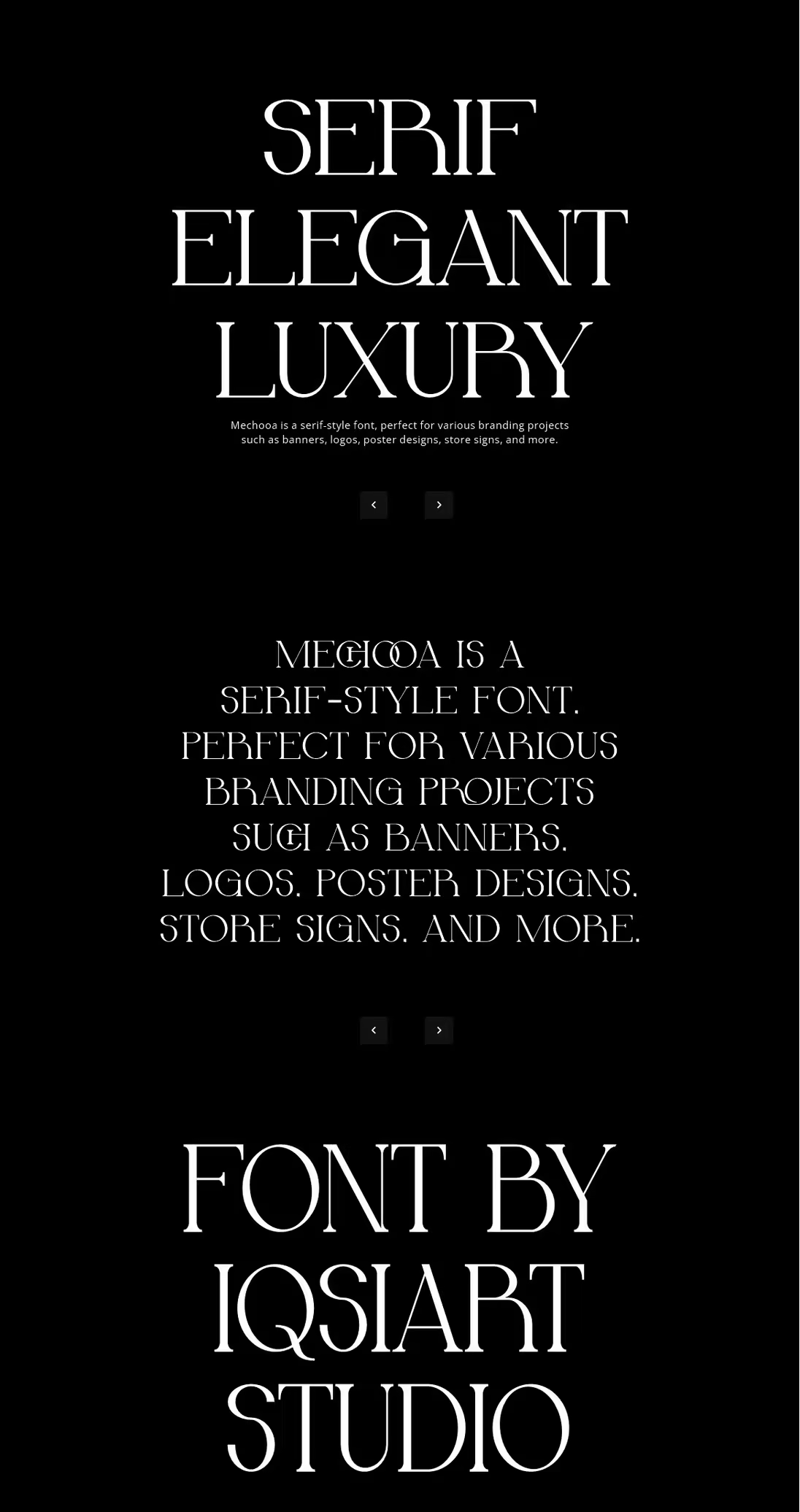
EE - Mechooa - Modern Elegant Font 454Z24M
Mechooa Font is a serif and authentic display typeface that suits a variety of design needs. We offer a wide range of themes and font styles — visit our profile to explore more and find the perfect style for your project.